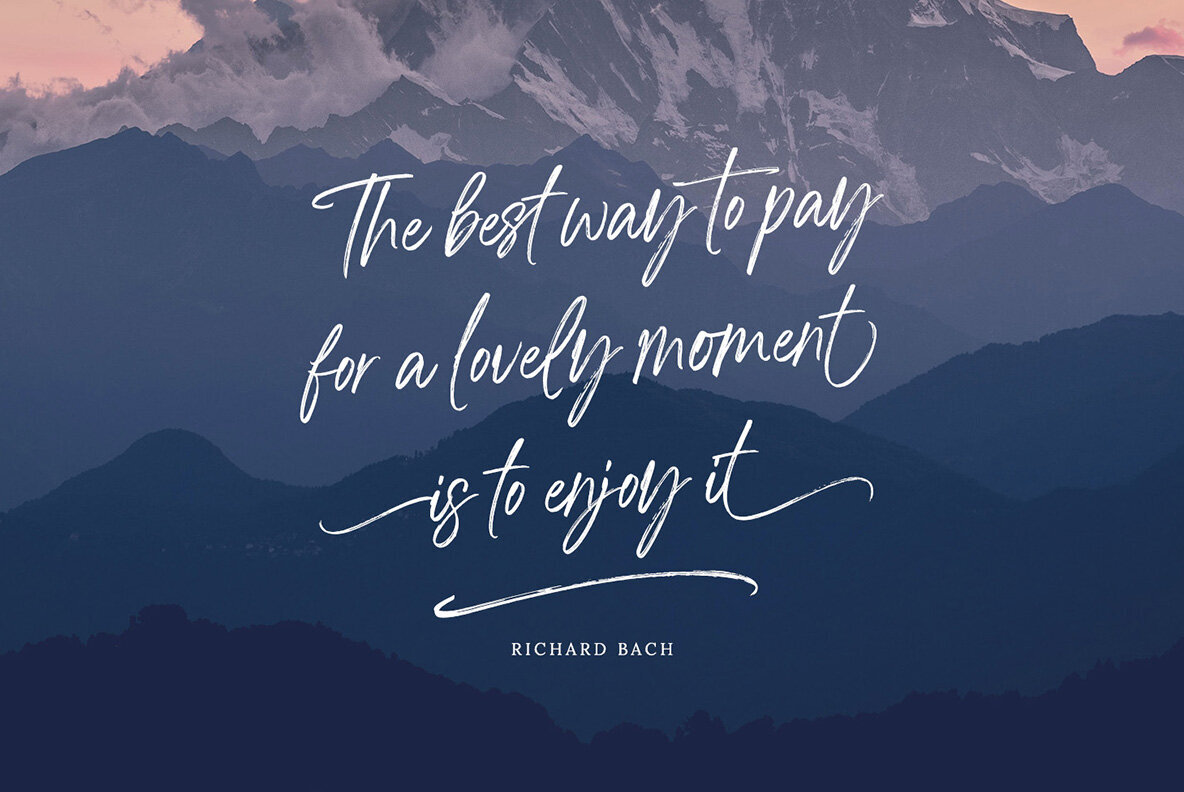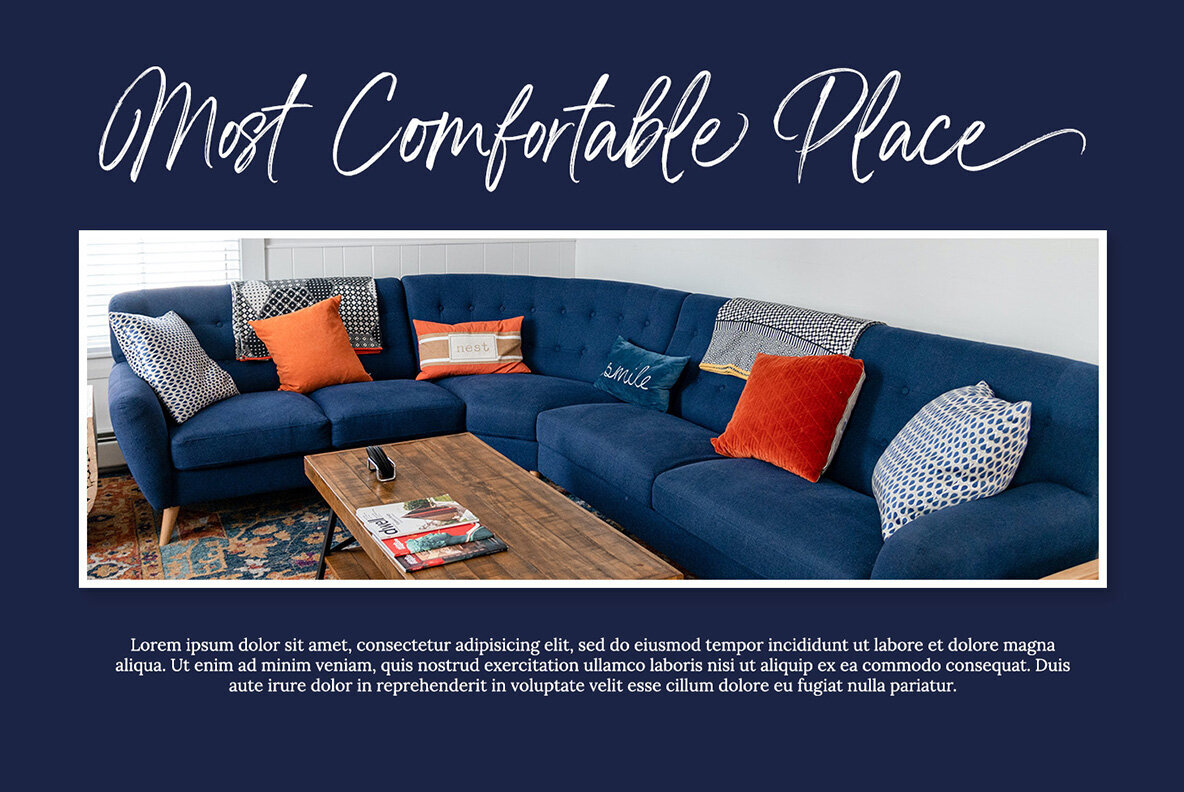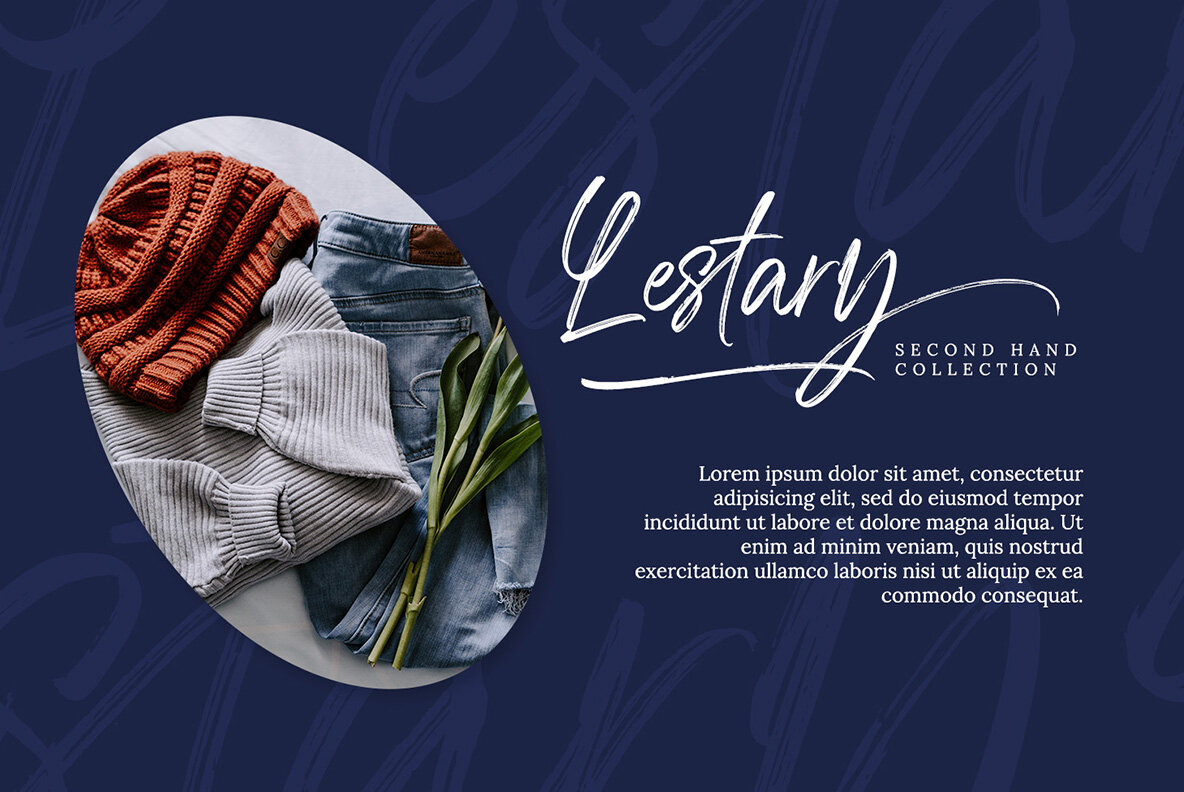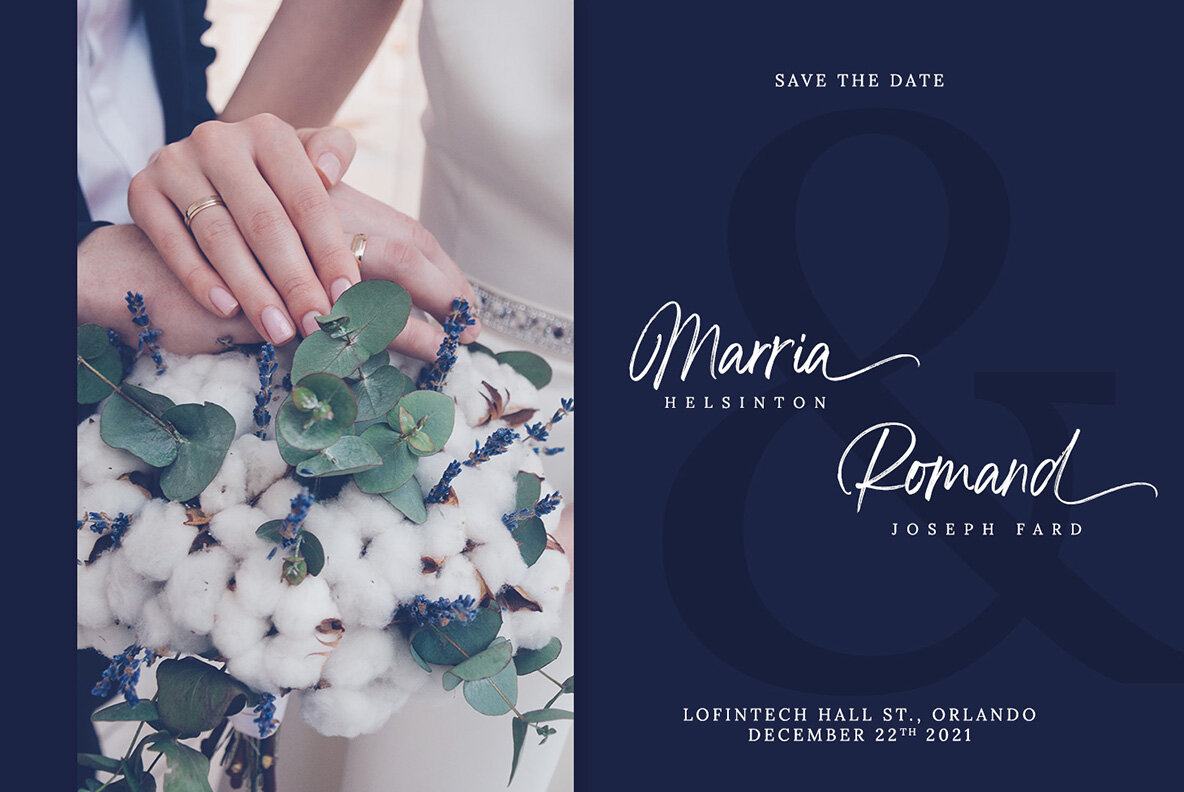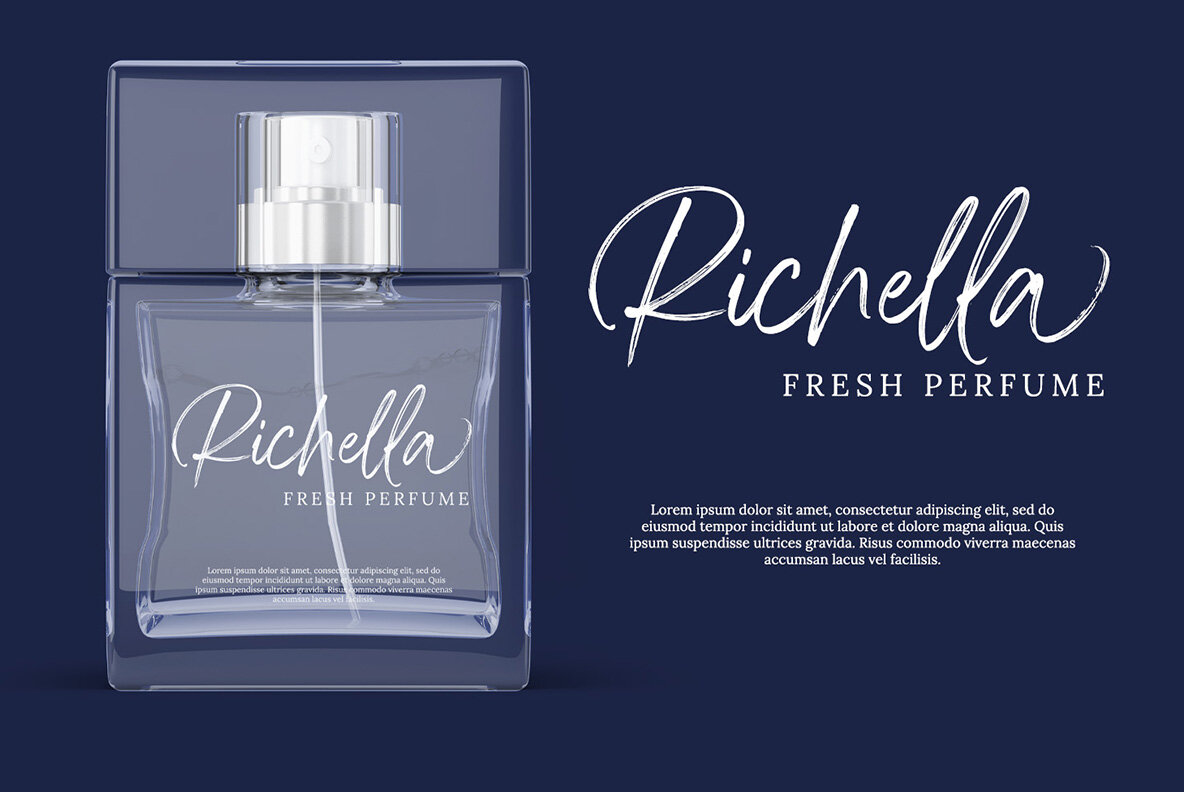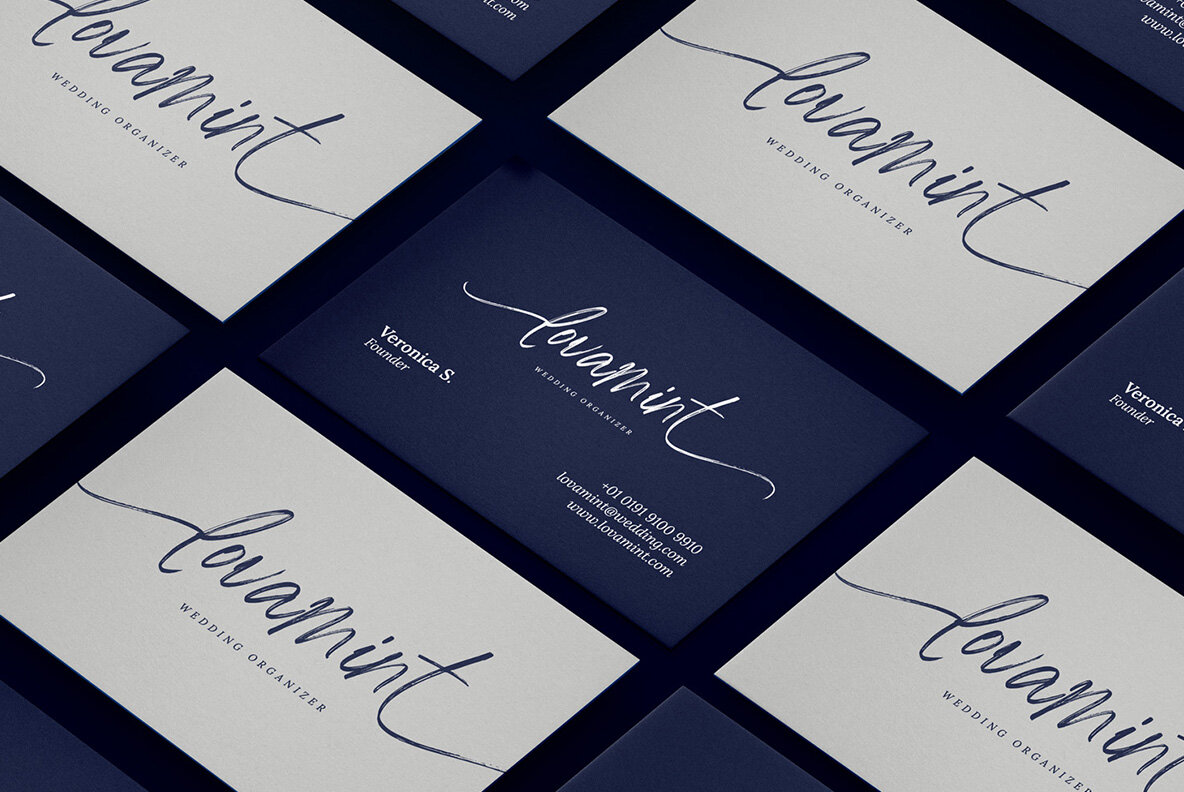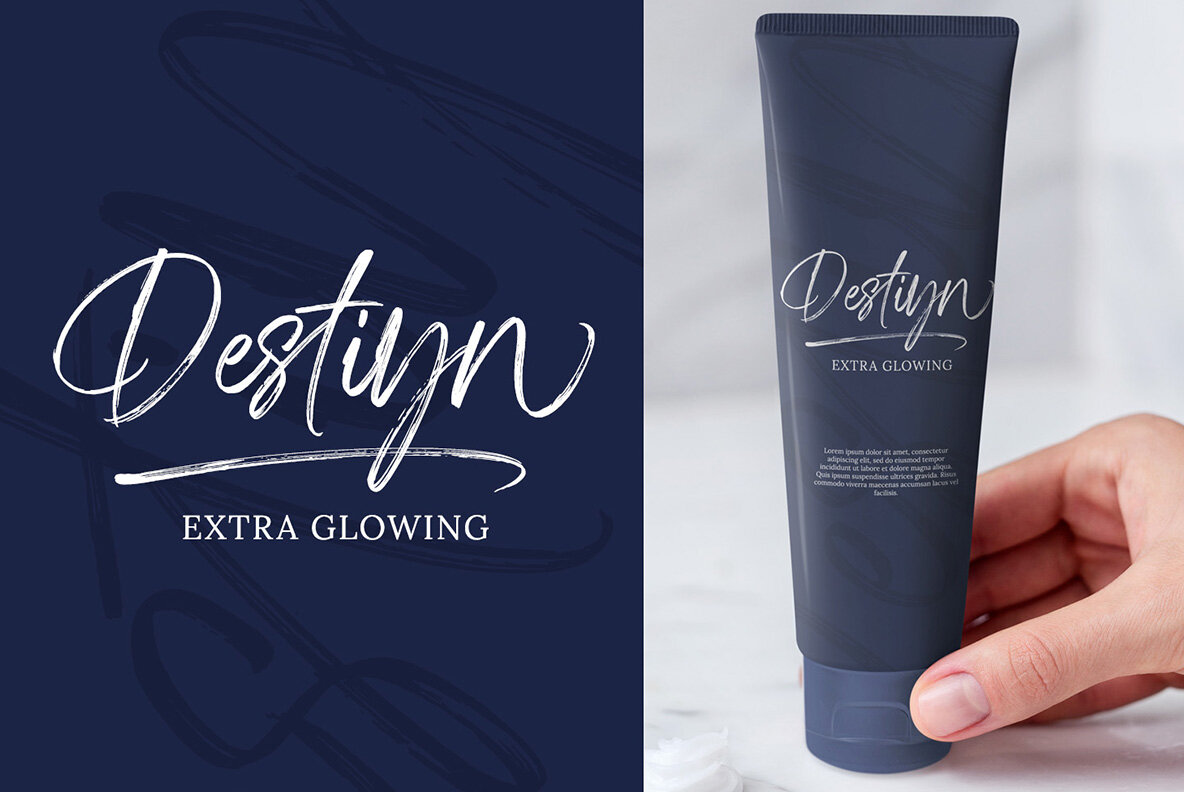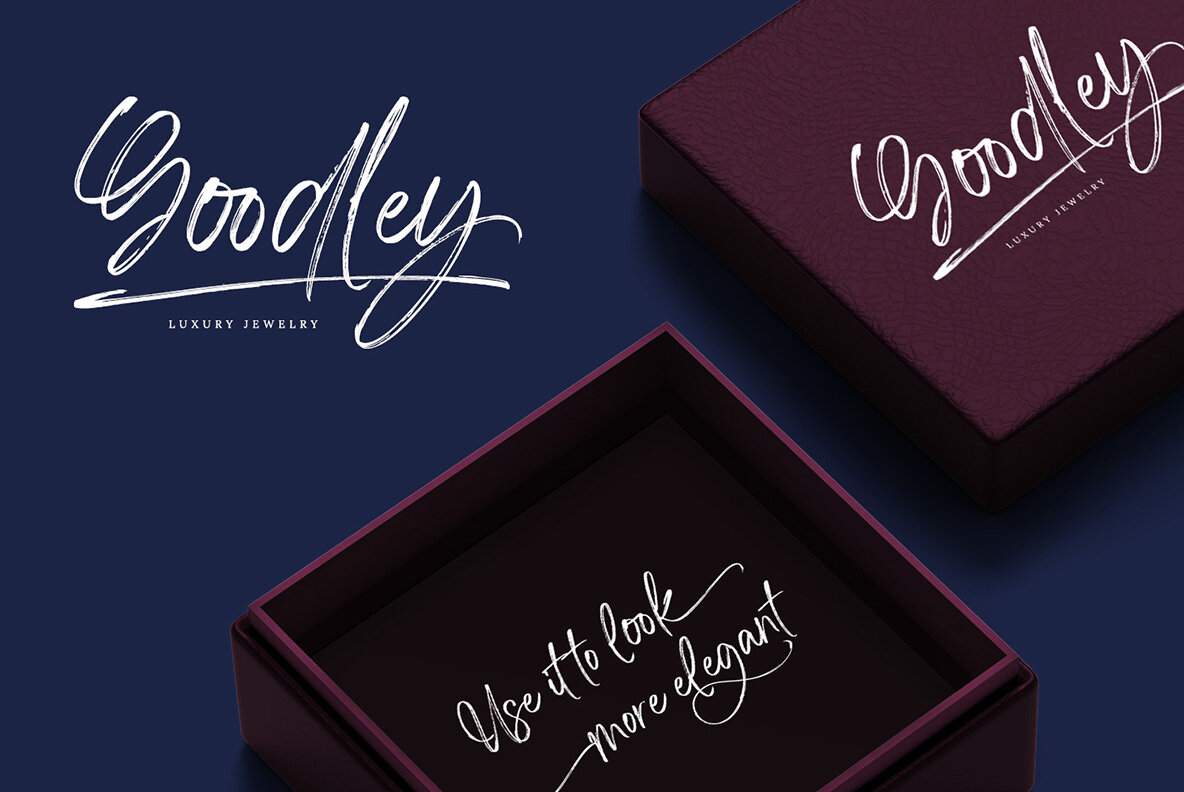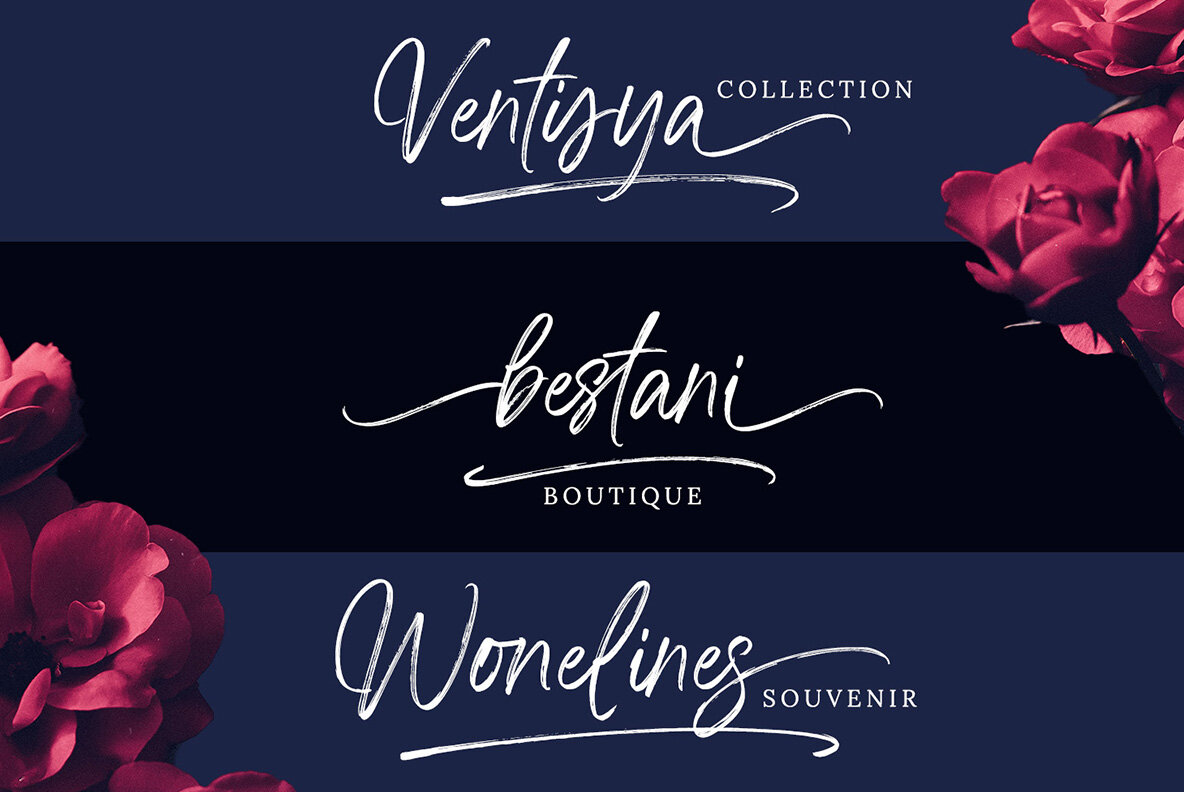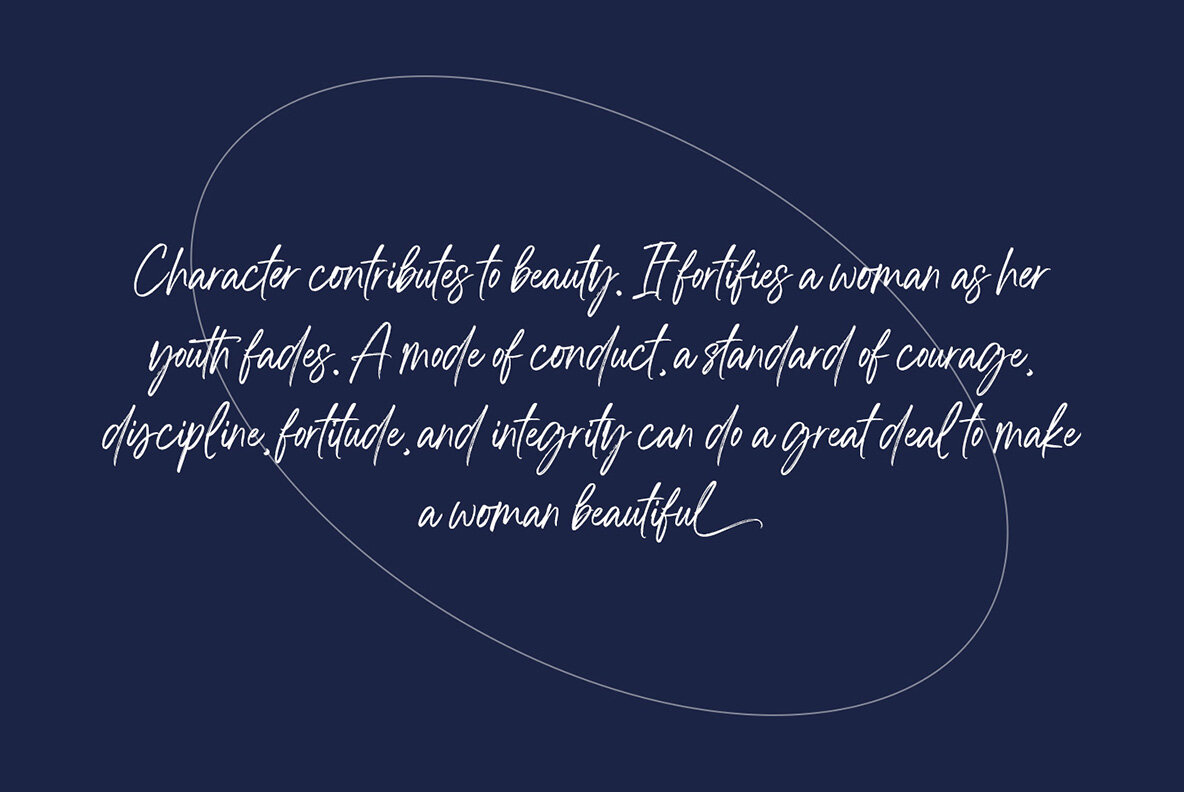
Smiling Lovely Font
Smiling Lovely is a luxurious handwritten font crafted in a timeless and classy style, ideal for designs that need to command attention and inspire creativity. Its elegant flair makes it perfect for a variety of projects, from logos and headings to branding materials, magazine covers, and book designs. The handcrafted, brush-inspired style is influenced by contemporary trends, ensuring your project stands out in any context.
This versatile font is particularly suited for apparel design, movie titles, greeting cards, and product packaging, among others. With features like alternates, ligatures, stylistic sets, and swashes, Smiling Lovely offers flexibility in design. Additionally, PUA encoding and support for numerals and punctuation make it a practical choice. The inclusion of multilingual support ensures that your projects are ready to resonate with a global audience.